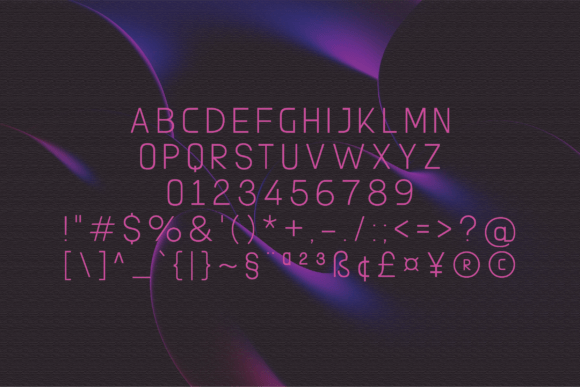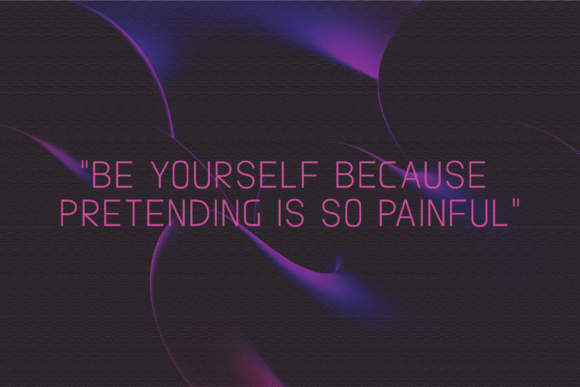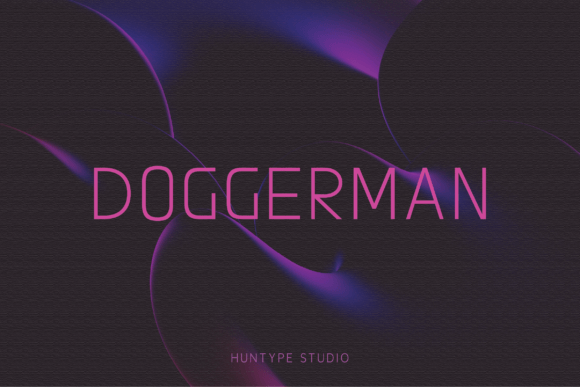
Introducing Doggerman Font: The Ultimate Sans Serif for Modern Designs
In the world of typography, fonts play a crucial role in conveying messages, expressing emotions, and creating brand identities. For designers and crafters, finding the perfect font can be a daunting task, especially when it comes to creating visually appealing and professional-looking designs. This is where Doggerman Font comes in – an all-caps sans serif font that has taken the design community by storm.
What is Doggerman Font?
Doggerman Font is a versatile and modern sans serif font that excels in various design contexts. Its smooth and clean lines, accompanied by a touch of contrast, make it an excellent choice for logos, branding, and web headings. The font’s all-caps design ensures that your text stands out, while its simplicity and elegance prevent it from overpowering your design.
Key Features of Doggerman Font
- All-caps design: Doggerman Font features an all-caps design, making it perfect for headings, titles, and emphasis.
- Sans serif: The font’s sans serif design provides a clean and modern look, suitable for a wide range of design applications.
- Smooth and clean lines: Doggerman Font’s smooth and clean lines ensure that your text looks professional and visually appealing.
- Touch of contrast: The font’s subtle contrast adds depth and character to your text, making it more engaging and readable.
- Versatility: Doggerman Font is versatile and works beautifully in various design contexts, including logos, branding, web headings, and more.
Why Choose Doggerman Font?
With so many fonts available, why should you choose Doggerman Font for your design projects? Here are a few compelling reasons:
- Unique and distinctive: Doggerman Font’s all-caps design and subtle contrast make it a unique and distinctive font that sets your design apart from others.
- Highly legible: The font’s clean lines and simple design ensure that your text is highly legible, even at small font sizes.
- Easy to pair: Doggerman Font is easy to pair with other fonts, making it a great addition to your font library.
- Perfect for branding: The font’s modern and professional look makes it an excellent choice for branding and logo design.
Design Applications for Doggerman Font
Doggerman Font is a versatile font that can be used in various design applications, including:
- Logo design: The font’s unique and distinctive design makes it perfect for logos and branding.
- Web design: Doggerman Font works beautifully for web headings, adding a touch of modernity and professionalism to your website.
- Print design: The font’s clean lines and simple design make it suitable for print design, including brochures, posters, and business cards.
- Crafting: Doggerman Font is also perfect for crafters, adding a touch of personality and style to your DIY projects.
In conclusion, Doggerman Font is an excellent addition to any designer’s font library. Its unique and distinctive design, versatility, and high legibility make it perfect for a wide range of design applications. Whether you’re a designer, crafter, or simply someone looking for a modern and professional font, Doggerman Font is definitely worth checking out.